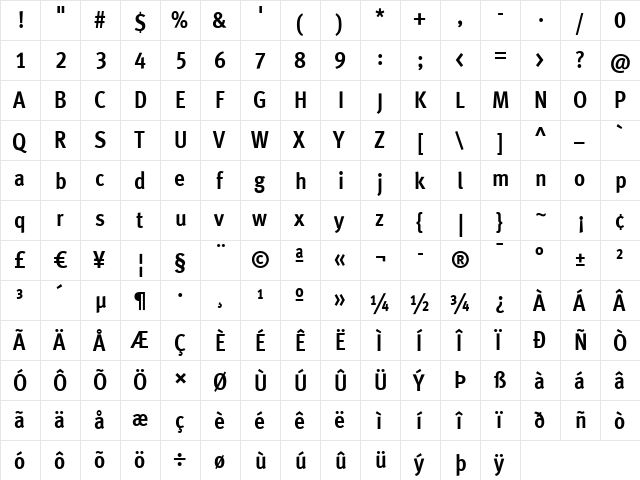
MetaCond Bold
Design Context for MetaCond Typeface
MetaCond offers clean, dependable letterforms without strong stylistic allegiance, making it a practical choice for designers who need flexibility. Its bold stroke weight gives it real presence on the page. The condensed width makes it efficient for tight spaces without sacrificing legibility.